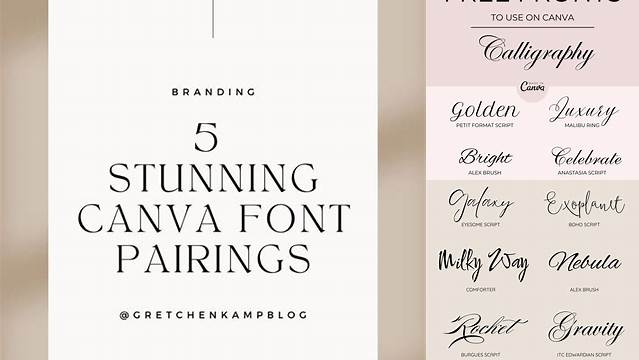
Canva Elegant Fonts: Your Guide To Stylish Designs
Hey everyone! Ever feel like your designs are missing that certain something? Maybe they're a little…blah? Well, the secret sauce could be as simple as choosing the right font. And guess what? Canva is a treasure trove of options, especially when it comes to simple elegant fonts. These fonts can instantly elevate your projects, giving them a touch of sophistication and making them more visually appealing. In this article, we'll dive deep into the world of elegant fonts in Canva, helping you find the perfect ones to boost your designs. Let's get started, shall we?
Discovering the Power of Elegant Fonts in Canva
So, why are simple elegant fonts so crucial? Think about it: fonts are the silent communicators of your design. They set the tone, convey your brand's personality, and even influence how people perceive your message. A well-chosen font can draw viewers in, create a sense of trust, and make your work stand out. On the other hand, a poorly chosen font can make your work look cluttered, unprofessional, or just plain boring. Canva understands this, which is why they offer a wide array of elegant fonts to help you create stunning visuals. Using these fonts can transform your presentations, social media posts, logos, and any other visual project you are working on. The key here is to find the right balance; you don’t want something that screams too loudly, but you do want something that grabs attention and delivers your message with clarity and grace. Selecting an elegant font is more than just picking letters; it's about conveying emotions, building a cohesive aesthetic, and creating a lasting impact on your audience. The right font speaks volumes, and Canva makes it easy to find the perfect voice for your designs.
Canva’s user-friendly interface makes it super easy to browse and experiment with different fonts. You can filter by style, which is a great way to narrow down your options. This allows you to quickly find fonts that are described as elegant, clean, or modern. The platform also provides font pairings, which suggests complementary fonts that work well together. So, even if you're not a design expert, you can still create beautiful combinations with ease. Moreover, Canva provides tools to adjust font size, spacing, and color. You can customize your text to perfectly match your design's overall aesthetic. Experimenting with these features is part of the fun. Don’t be afraid to play around with different styles and see what works best for your project. The right font can transform a basic design into something extraordinary, leaving a lasting impression on your audience. With Canva's extensive library of elegant options, you'll be able to discover your personal style and create designs that truly shine. Remember, the most effective designs communicate not just with words, but also with the subtle language of style.
Ultimately, choosing the right simple elegant fonts in Canva is about understanding your audience and what resonates with them. Are you aiming for a classic look, a modern feel, or something in between? Do you want to project a sense of luxury, simplicity, or professionalism? By considering these factors, you can narrow down your font choices and find the perfect match for your project. Think about how the font interacts with other design elements like colors, images, and layout. Does it enhance the overall message, or does it clash? Does it make the content easy to read and enjoy, or does it detract from the design? Keep these questions in mind, and you'll be on your way to creating truly elegant and effective designs. With Canva’s array of options, you have the tools to make your vision come to life and captivate your audience. By taking your time and being thoughtful in your choices, you can ensure that your designs are not only visually appealing but also impactful and memorable. Canva empowers you to do just that, making design accessible and enjoyable for everyone.
Top Simple Elegant Fonts in Canva to Try
- Playfair Display: This is a classic serif font that exudes elegance. It has high contrast and is perfect for headings and titles. The slightly curved serifs give it a refined feel. Playfair Display is a great option for designs that want to convey a sense of tradition, luxury, or sophistication.
- Lora: Lora is another excellent choice for an elegant look. It's a well-balanced serif font with a contemporary feel. Its design makes it perfect for both headings and body text. It's readable, versatile, and works well in various contexts. Lora will work for any project where readability is important, while still maintaining a sense of elegance.
- Montserrat: While technically a sans-serif font, Montserrat's clean lines and geometric shapes give it an elegant, modern feel. It's highly versatile and can be used in various designs, from headings to body text. Montserrat comes in a range of weights, which allows you to add emphasis where needed. It is a solid choice if you are looking for clean lines with a modern aesthetic.
- Raleway: Raleway is another stylish sans-serif font that provides a clean, elegant look. It's a versatile font with a wide range of weights, making it great for various purposes. The slender strokes and balanced design make it a perfect choice for headlines, titles, and body text. Its modern style adds a touch of elegance to any design. This font is an excellent option if you are looking for a minimalist design.
- Great Vibes: If you're looking for something with a touch of handwritten charm, Great Vibes is perfect. This elegant script font adds a personal and sophisticated touch to your designs. It's great for invitations, quotes, and other creative projects. While it's elegant, it should be used sparingly and with caution to ensure readability.
Choosing the right font from these simple elegant fonts will help enhance your designs. Feel free to experiment with these fonts and find the perfect match for your next project.
Pairing Elegant Fonts: Creating Stunning Combinations
Alright, so you've got some fantastic simple elegant fonts now, but how do you use them together? Font pairing is an art, and Canva makes it easy to master. The goal is to create visual harmony by combining fonts that complement each other. This often involves pairing a headline font with a body text font to create a balanced look. Here are some tips to make sure your fonts work well together:
- Contrast is Key: Good font pairings often have contrasting styles. For instance, pair a bold serif font for headings with a clean sans-serif font for the body text. This creates visual interest and improves readability. However, avoid overly contrasting combinations that clash.
- Consider the Mood: Think about the message you want to convey. A classic serif font can pair well with a modern sans-serif font to create a balance of tradition and modernity. Similarly, a script font paired with a simple sans-serif can convey a sense of elegance and creativity.
- Font Families: Canva offers font pairings that are part of the same font family. These fonts will typically have different weights and styles. Pairing different weights of the same font is a simple way to create a cohesive design. The result is consistent and easy to read.
- Balance and Harmony: The aim is to create visual balance. Ensure your chosen fonts complement each other without competing. Think about the overall layout of your design and how the fonts will fit into it.
Font pairing, at the end of the day, is about experimenting and finding what works best for your specific project. Use Canva's suggestions as a starting point, and then try different combinations to see what feels right. Create harmony through contrast and balance, so that each font enhances the other. This way, your designs will be not only beautiful but also effective.
Design Tips for Using Elegant Fonts Effectively
Now that you've chosen your simple elegant fonts and know how to pair them, let's talk about some design tips to make sure your text looks amazing.
- Hierarchy: Use font size, weight, and style to establish a clear visual hierarchy. Make your headings larger and bolder than your body text. This guides the viewer's eye and makes it easy to understand the content.
- Spacing: Proper spacing can significantly impact readability. Pay attention to line height, letter spacing, and word spacing. Too much or too little spacing can make your text difficult to read, which is why experimenting with spacing is often needed.
- Color: Font color should complement your overall design color scheme. Make sure there is enough contrast between the text and the background. Use dark fonts on light backgrounds and vice versa. Experiment with using a neutral color scheme, such as black and white, or subtle variations of shades, that can work great with elegant fonts.
- Alignment: Text alignment plays an important role. Center-aligned text can work for headings, but body text is usually left-aligned for better readability. You can experiment with different types of alignment to achieve various effects.
- Keep it Simple: Don't overload your designs with too many fonts. Stick to a maximum of two or three different fonts to maintain a consistent look. Don't mix too many styles. For a classic look, mix serifs with san-serif fonts. Keep your designs uncluttered and focused. This way, your message will be easier to understand.
Applying these design tips will help you get the most from your chosen fonts. Remember, elegant fonts alone won’t make a design successful. You need to consider how the text interacts with other elements, like images, colors, and layout. The right fonts will provide that crucial extra something that makes your designs memorable and effective.
Where to Use Simple Elegant Fonts in Canva
So, where can you use these simple elegant fonts? The possibilities are endless! Here are a few ideas to get you started:
- Social Media Posts: Use elegant fonts in your social media graphics to create eye-catching posts that stand out in the crowded feeds. This is perfect for quotes, announcements, or promotional materials.
- Presentations: Elevate your presentations with elegant fonts to make them more professional and engaging. Good fonts help communicate information in a clear and visually appealing way.
- Logos: Elegant fonts can be used to create sophisticated and memorable logos that will represent your brand. Make sure you choose a font that reflects your brand's personality.
- Invitations and Cards: Create beautiful invitations and cards for special occasions using these fonts. These projects will be a true reflection of the event and its style.
- Website Headers: Use elegant fonts for website headers, and create a stylish first impression for your visitors. Headers set the tone for your site and can tell the audience exactly what they can expect.
- Flyers and Posters: Elegant fonts can make your flyers and posters more attractive and effective. They catch the attention of potential customers in a quick and easy way.
No matter what you’re creating, elegant fonts can add a touch of class and sophistication to your designs. With Canva's selection, you can create stunning visuals that will make a lasting impression.
Mastering Simple Elegant Fonts: Final Thoughts
Alright, you've made it to the finish line! Mastering simple elegant fonts in Canva is about more than just choosing a pretty font; it's about understanding how typography affects your audience. It is about making informed decisions that are based on your brand and overall design. Don't be afraid to experiment, and most importantly, have fun! Canva provides the tools and options you need to achieve stunning results. By following these guidelines and practicing your skills, you'll be well on your way to creating beautiful designs that will impress your audience. You now have all the information needed to elevate your designs with style and grace.
Remember to always: Choose fonts that resonate with your project's message, experiment with pairings, and focus on the design tips to make your designs pop. Keep practicing, keep creating, and you'll be amazed at what you can achieve! Happy designing, everyone!